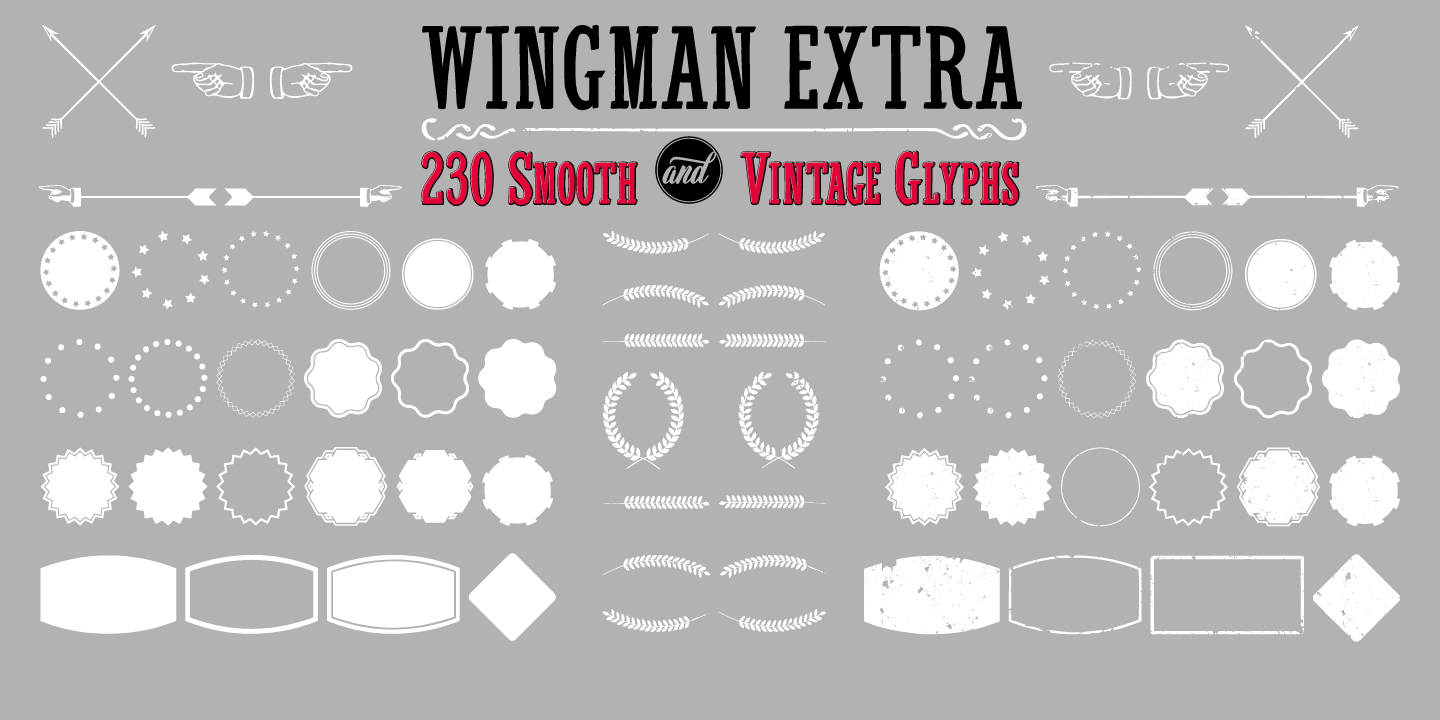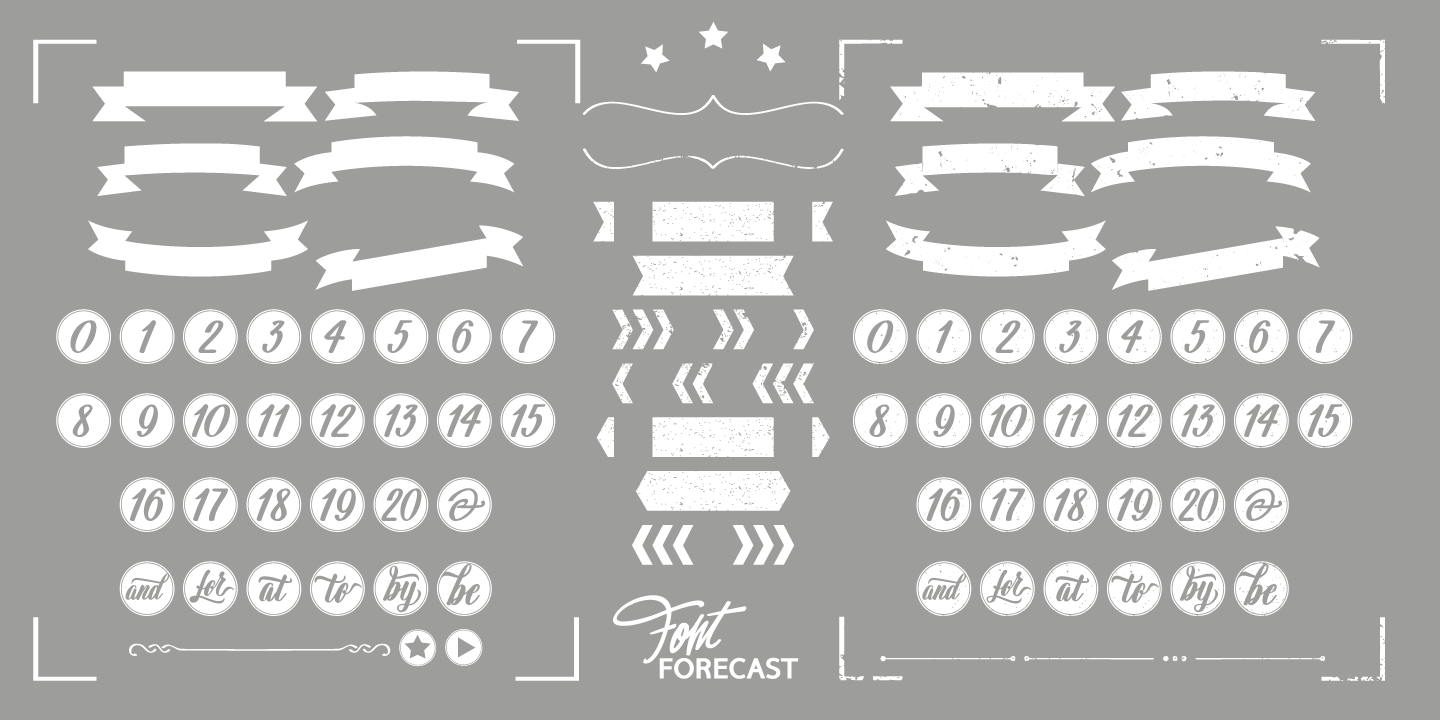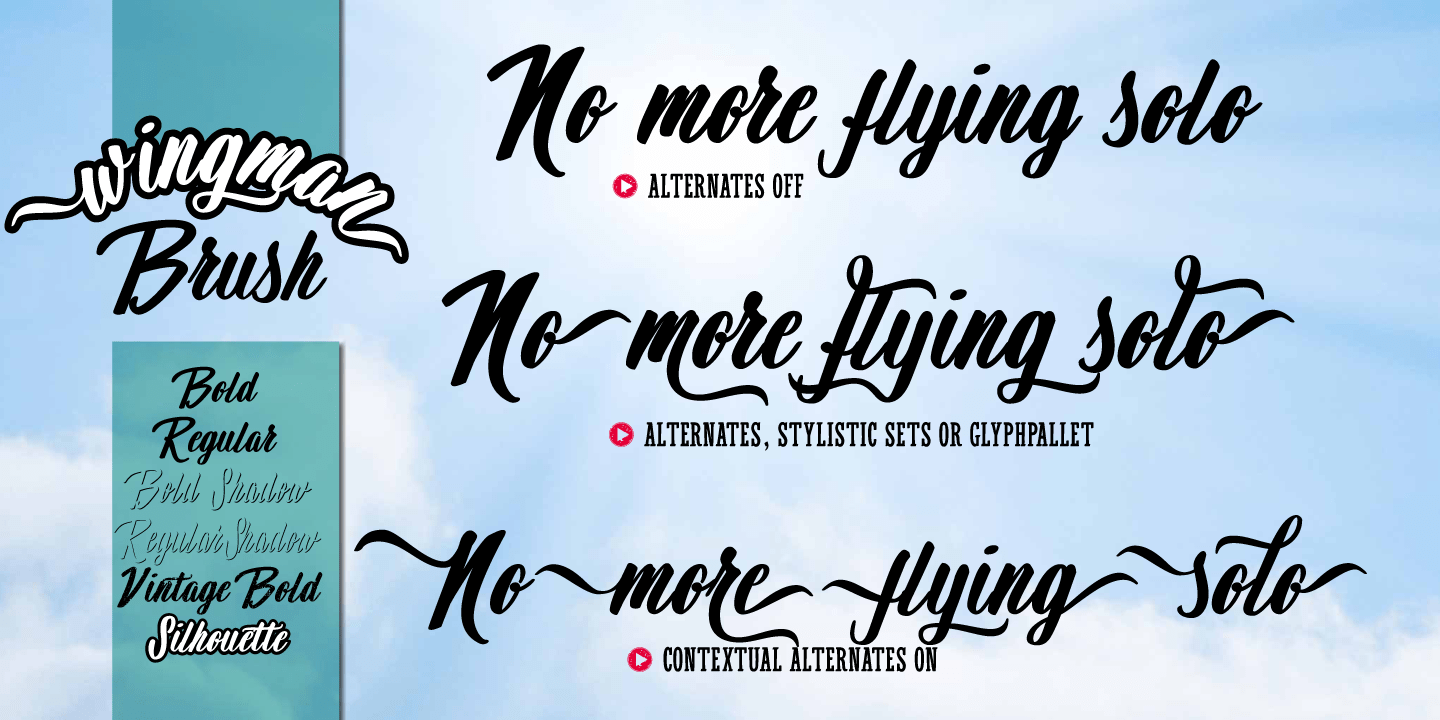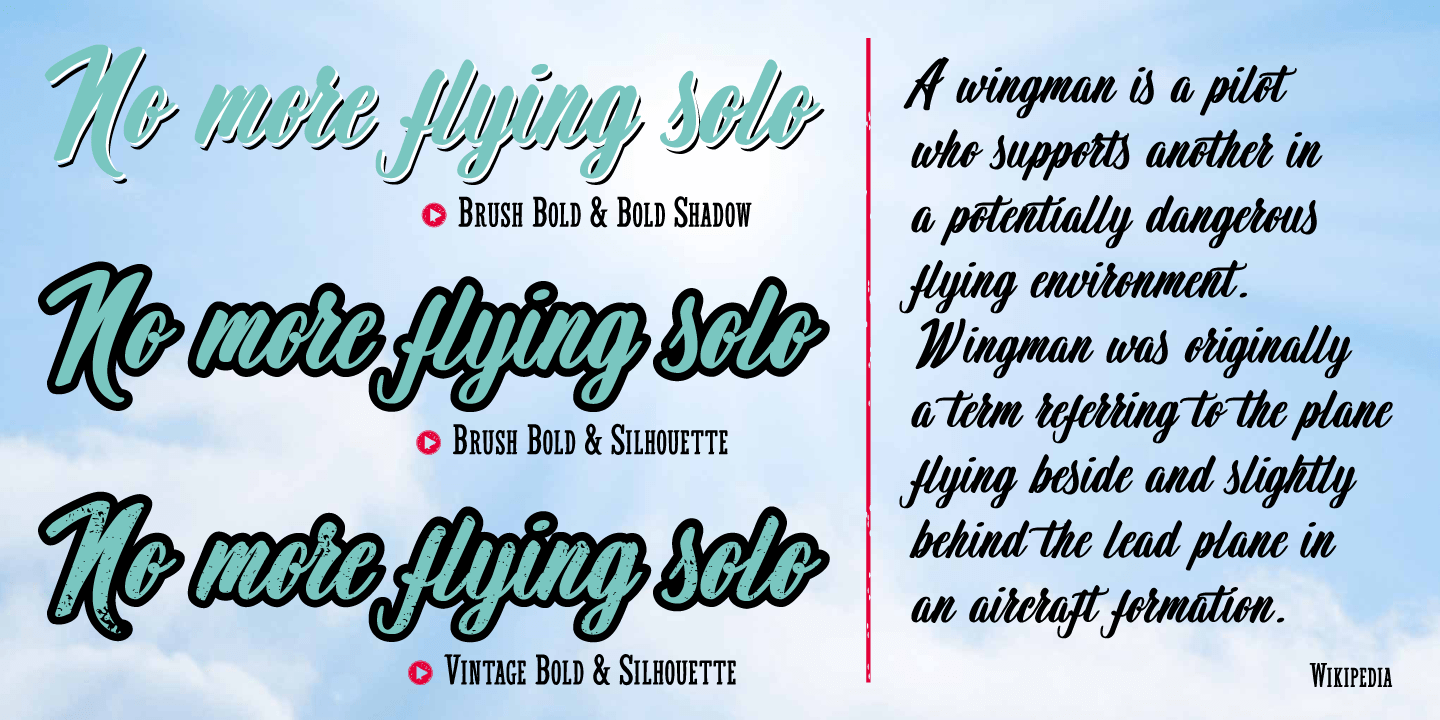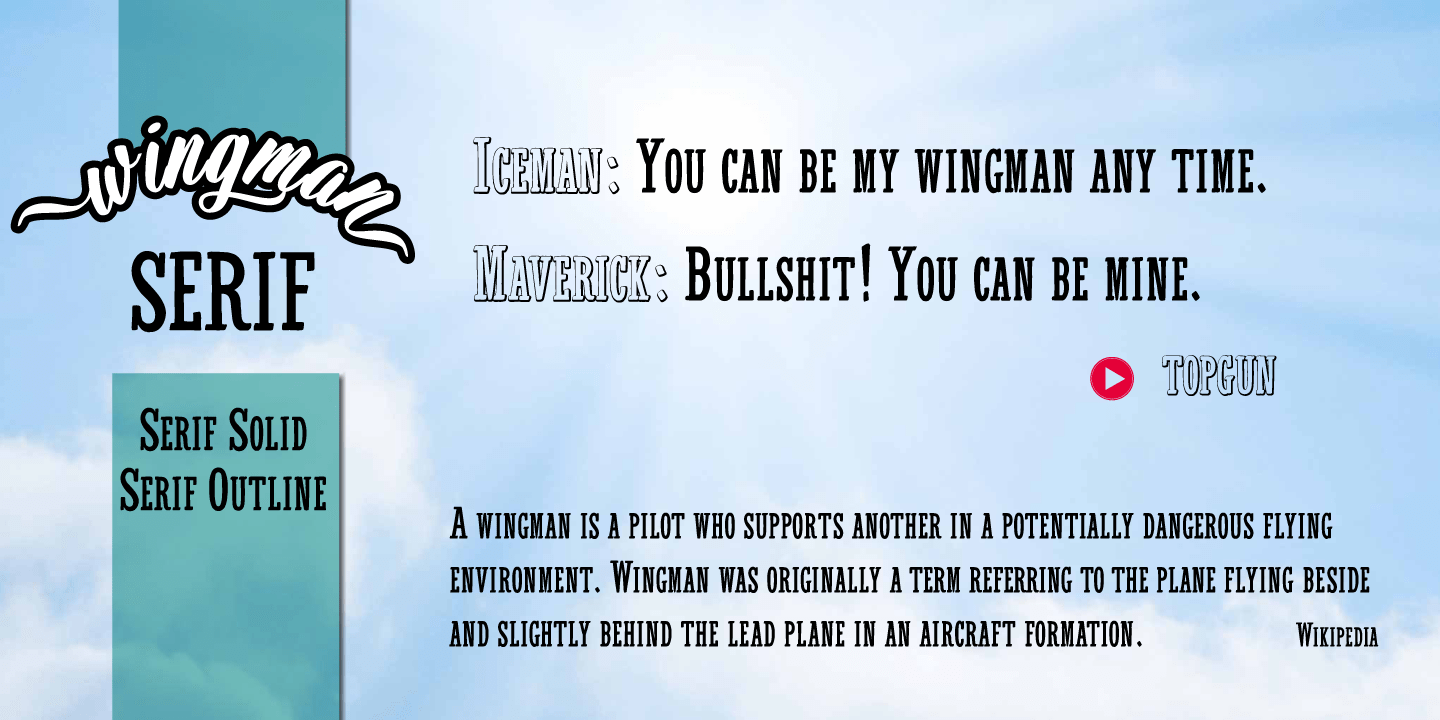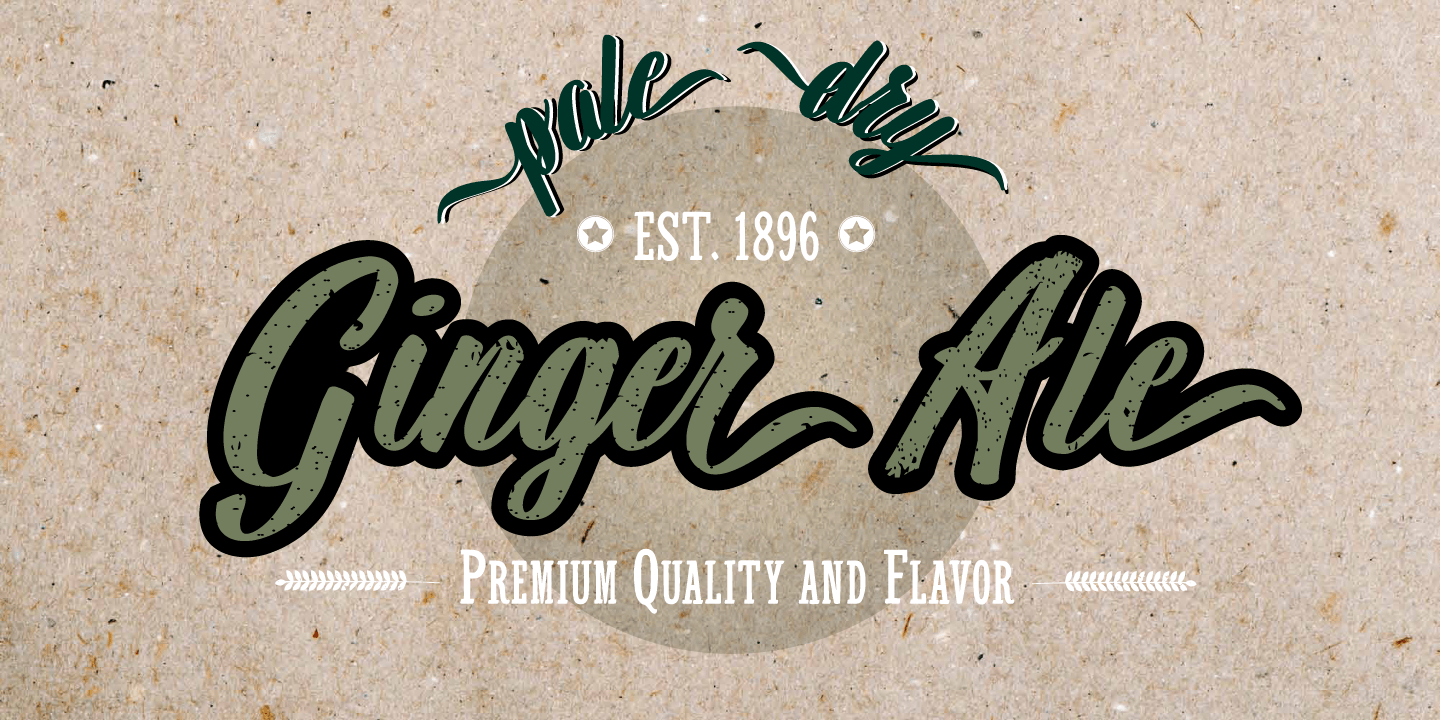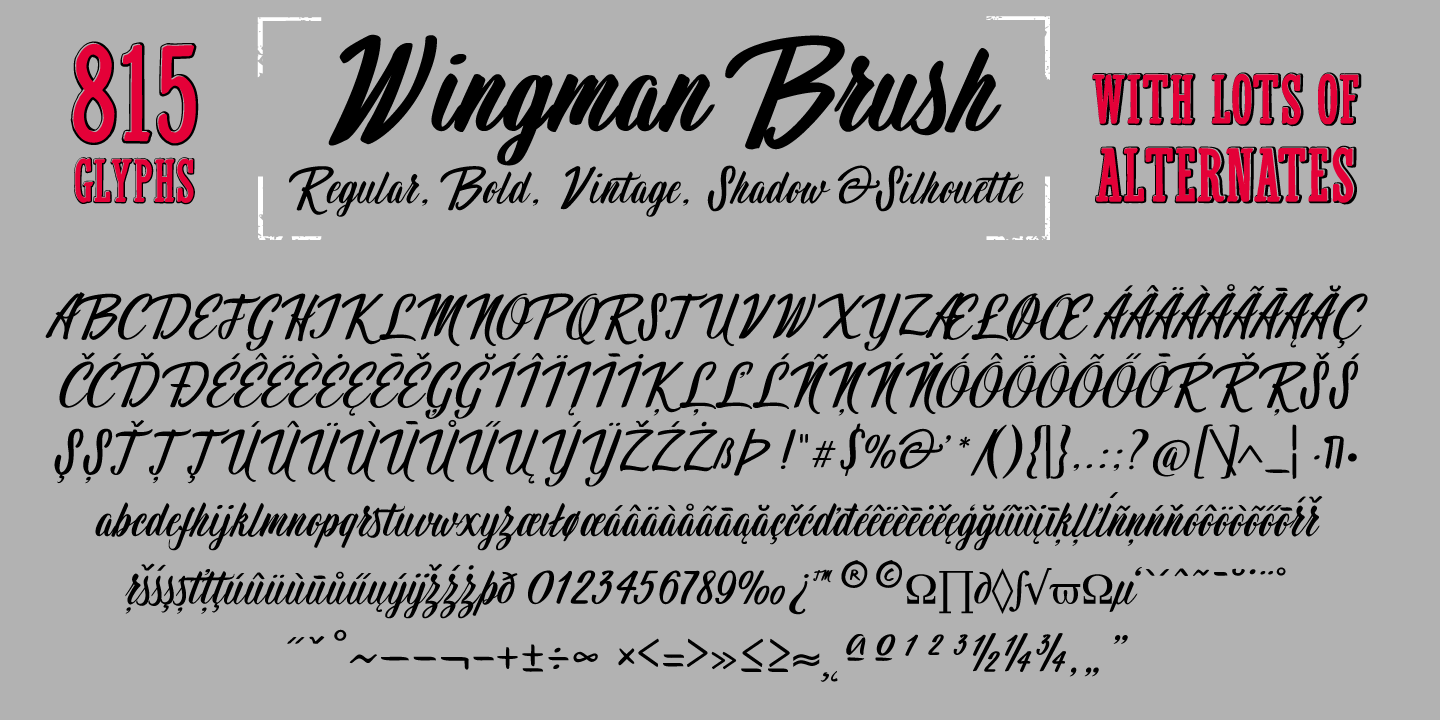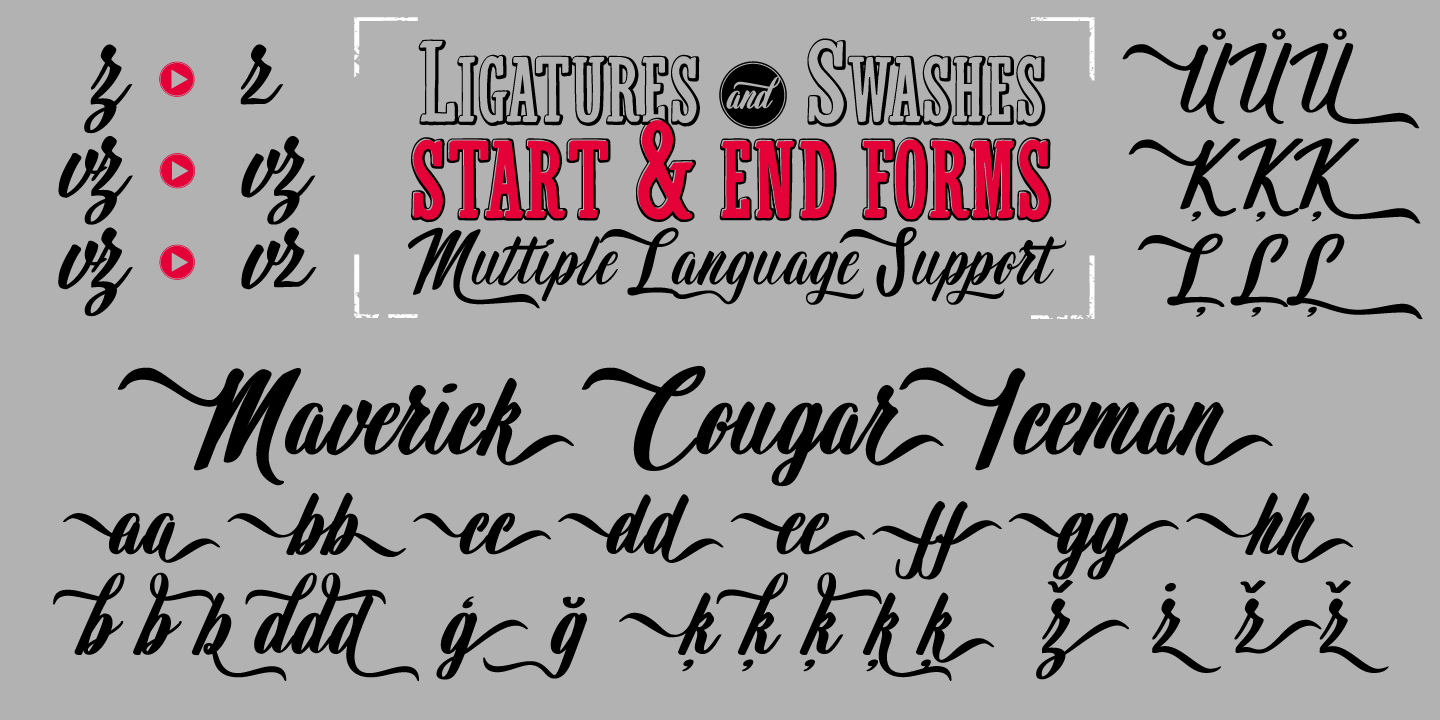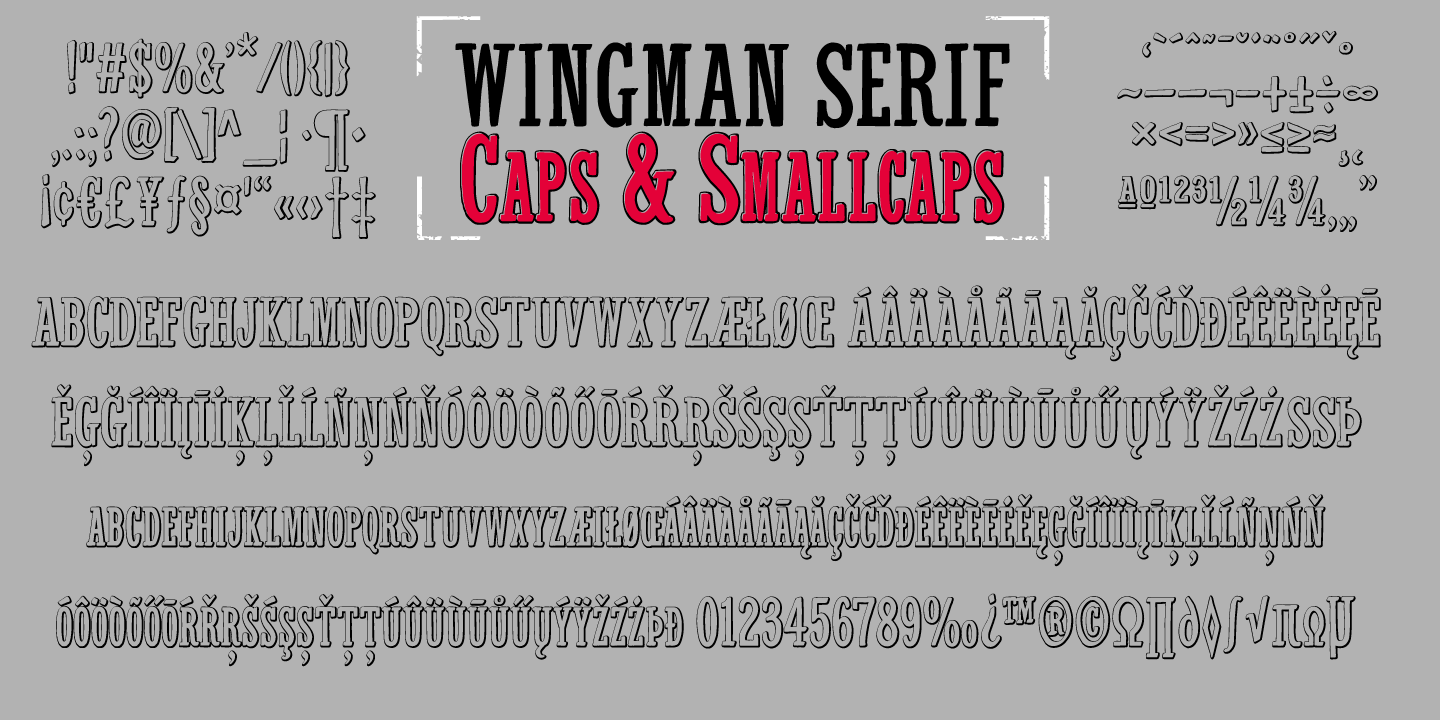
Wingman
Wingman consists of nine fonts, that can work together in perfect harmony to create beautiful designs. Like a true wingman they reinforce each others potential and offer mutual support.
Wingman Brush takes the lead and is, with its six styles, well equipped for many challenging typographic tasks. All Brush styles (except Brush Extra) have 815 glyphs and are packed with Open Type magic, e.g. contextual alternates, that automatically replace beginning and ending glyphs as you type. There are lots of swashes to choose from, organized in several stylistic sets. The bold and the regular styles have matching shadow versions. Brush Bold and Brush Silhouette fit together also. Nice logo-like effects can be achieved by layering these styles. On top of that Brush Vintage was added for a rustic feel. Brush Extra has 322 design elements in both smooth and vintage style.
Wingman Serif was designed to use together with the brush styles. It comes in a solid and outline version. Both fonts can fly solo, but together with Wingman Brush they make a powerful formation.